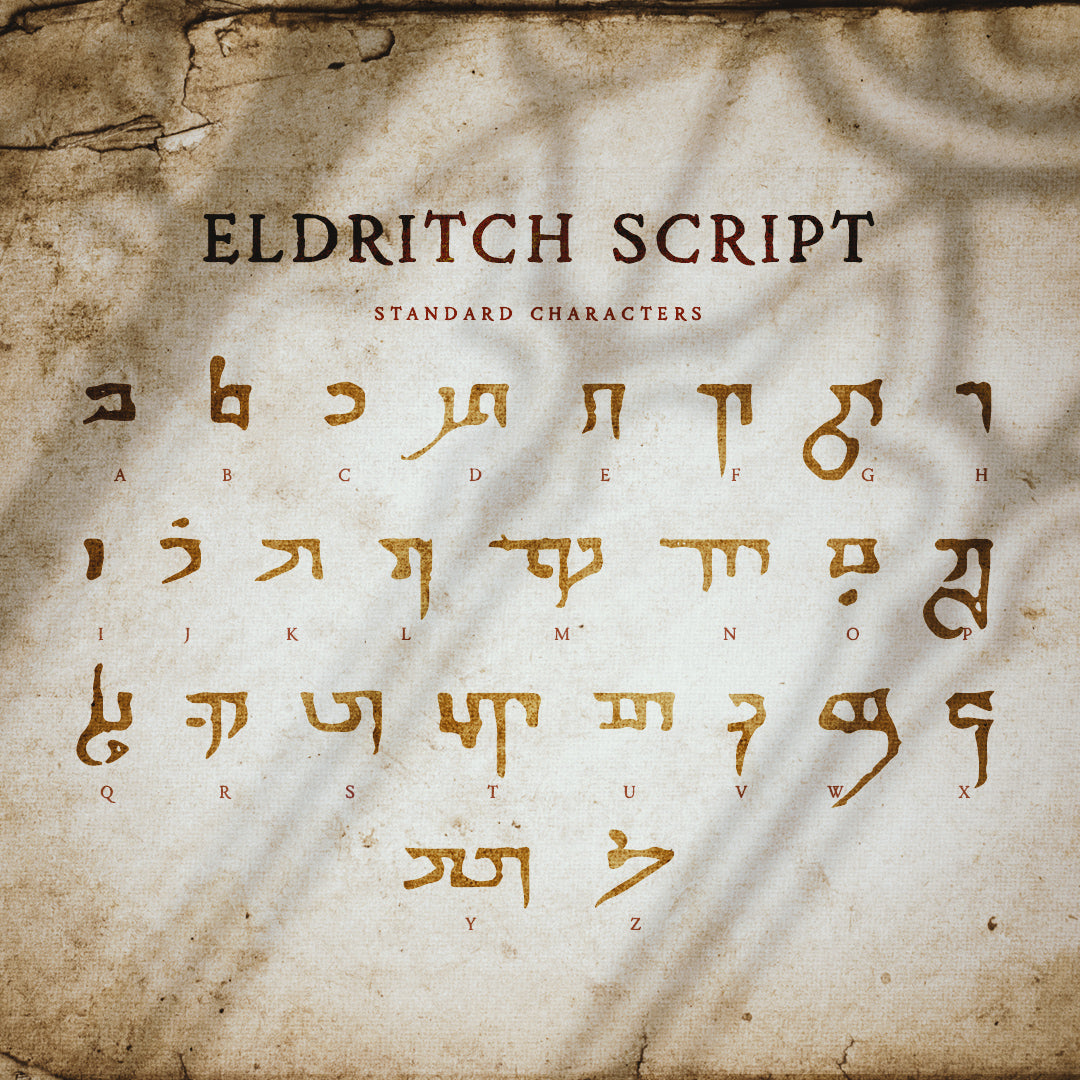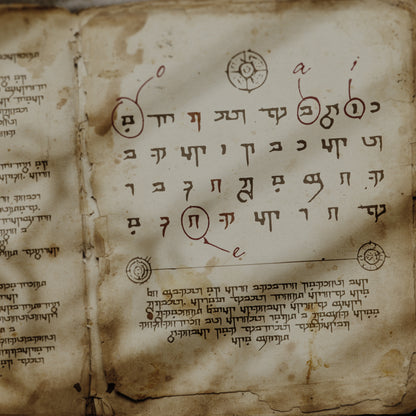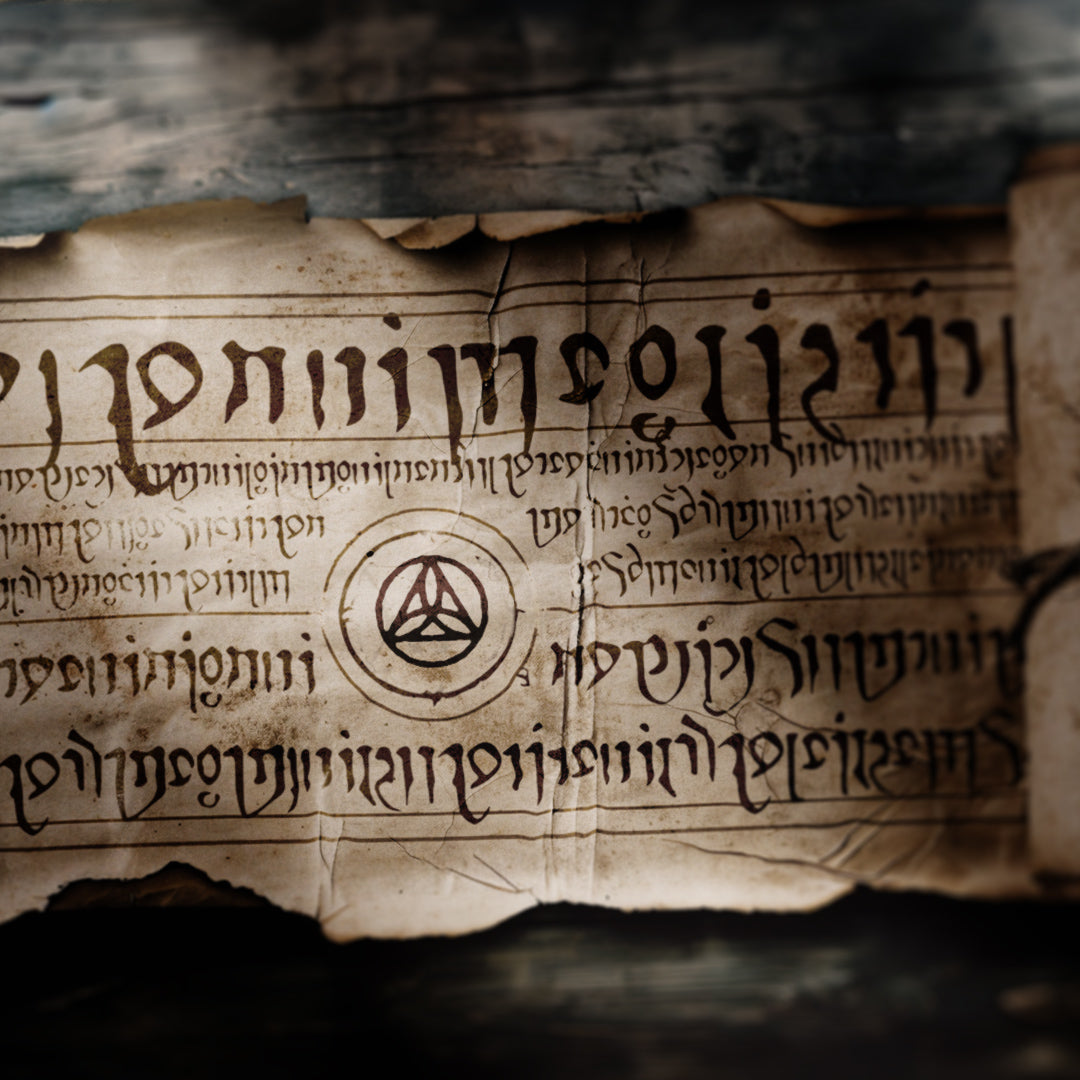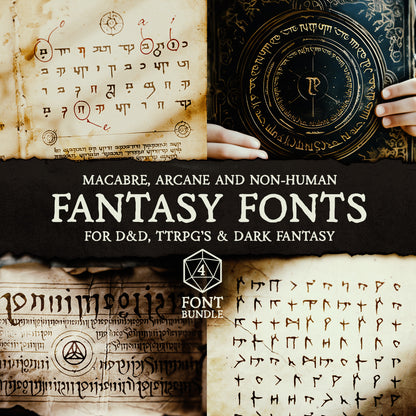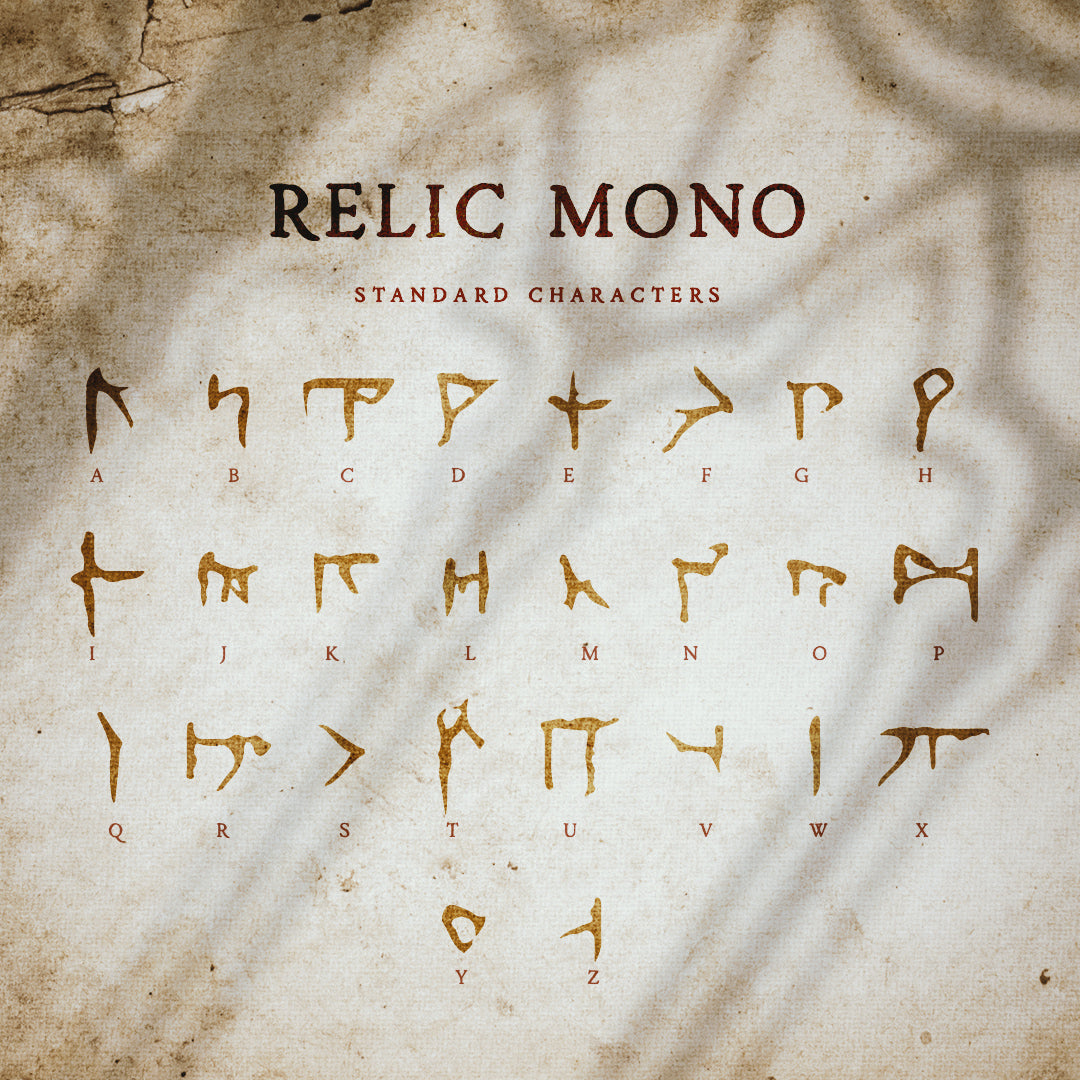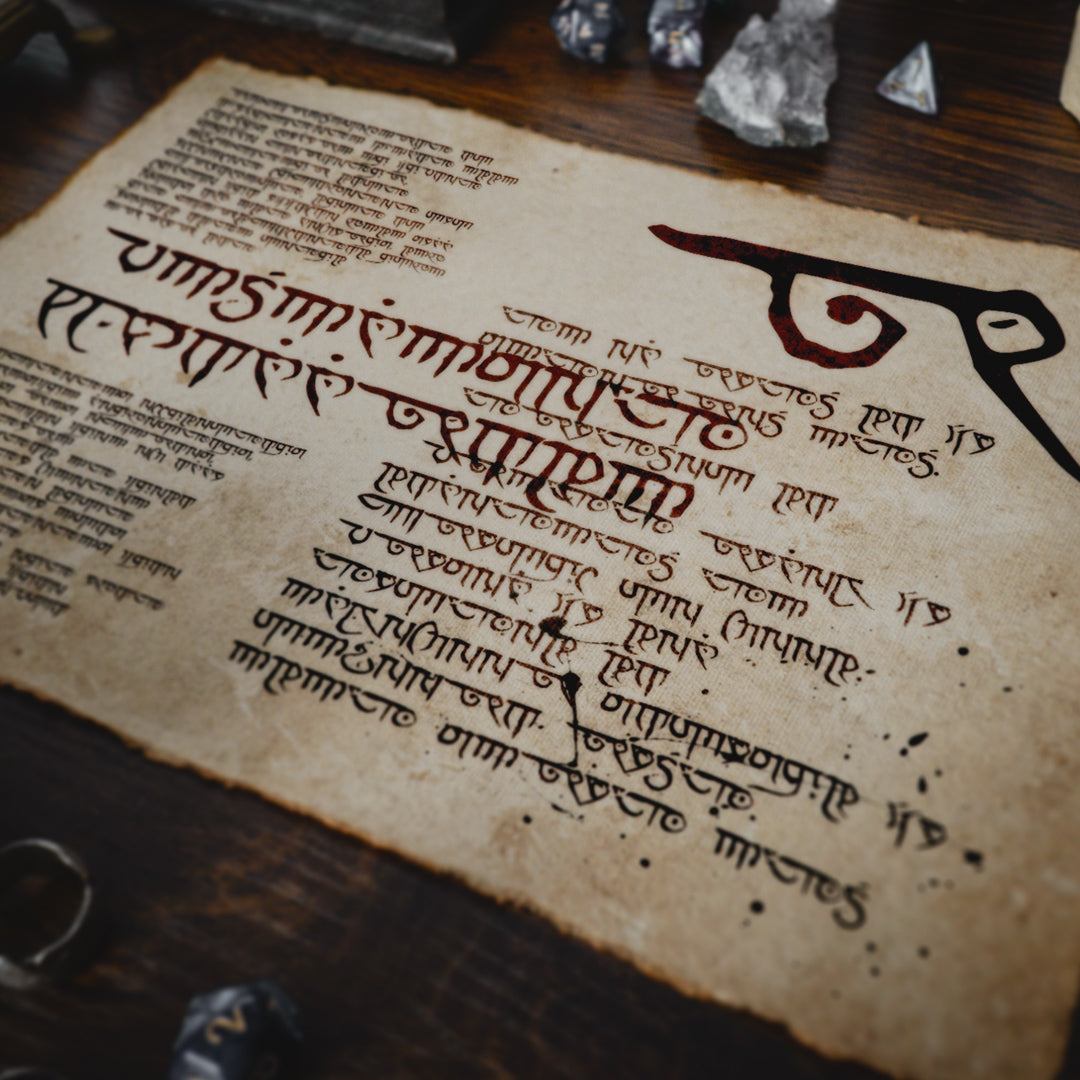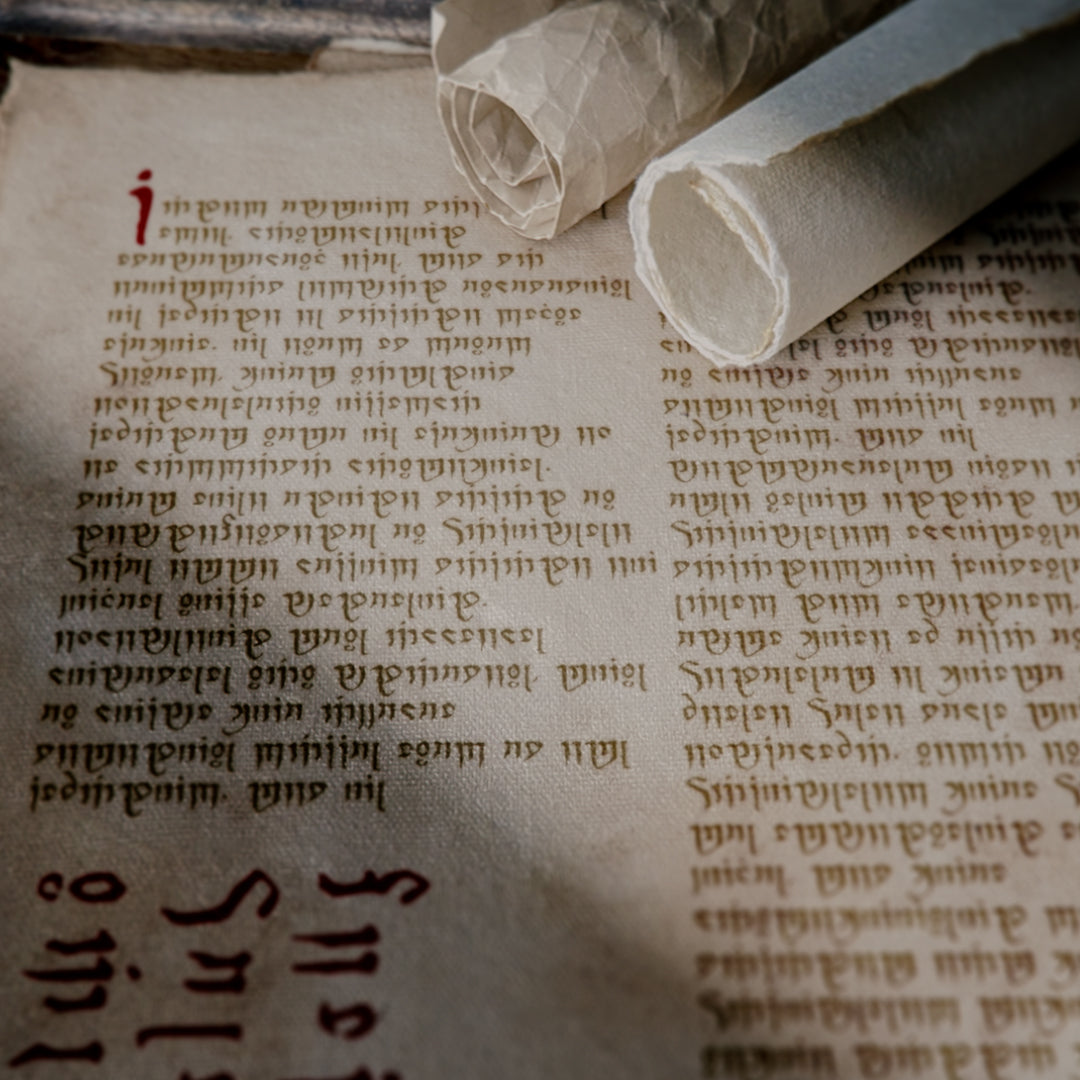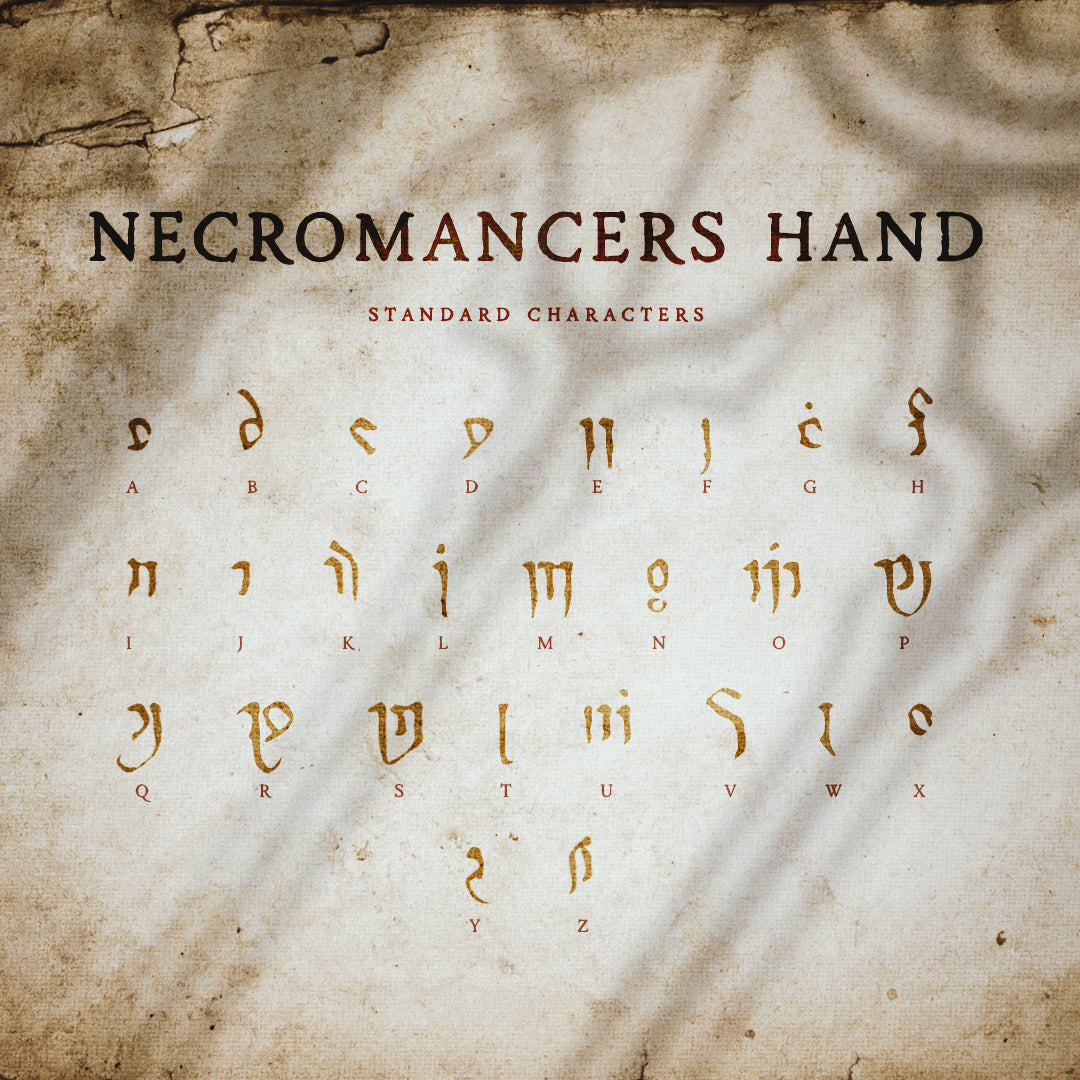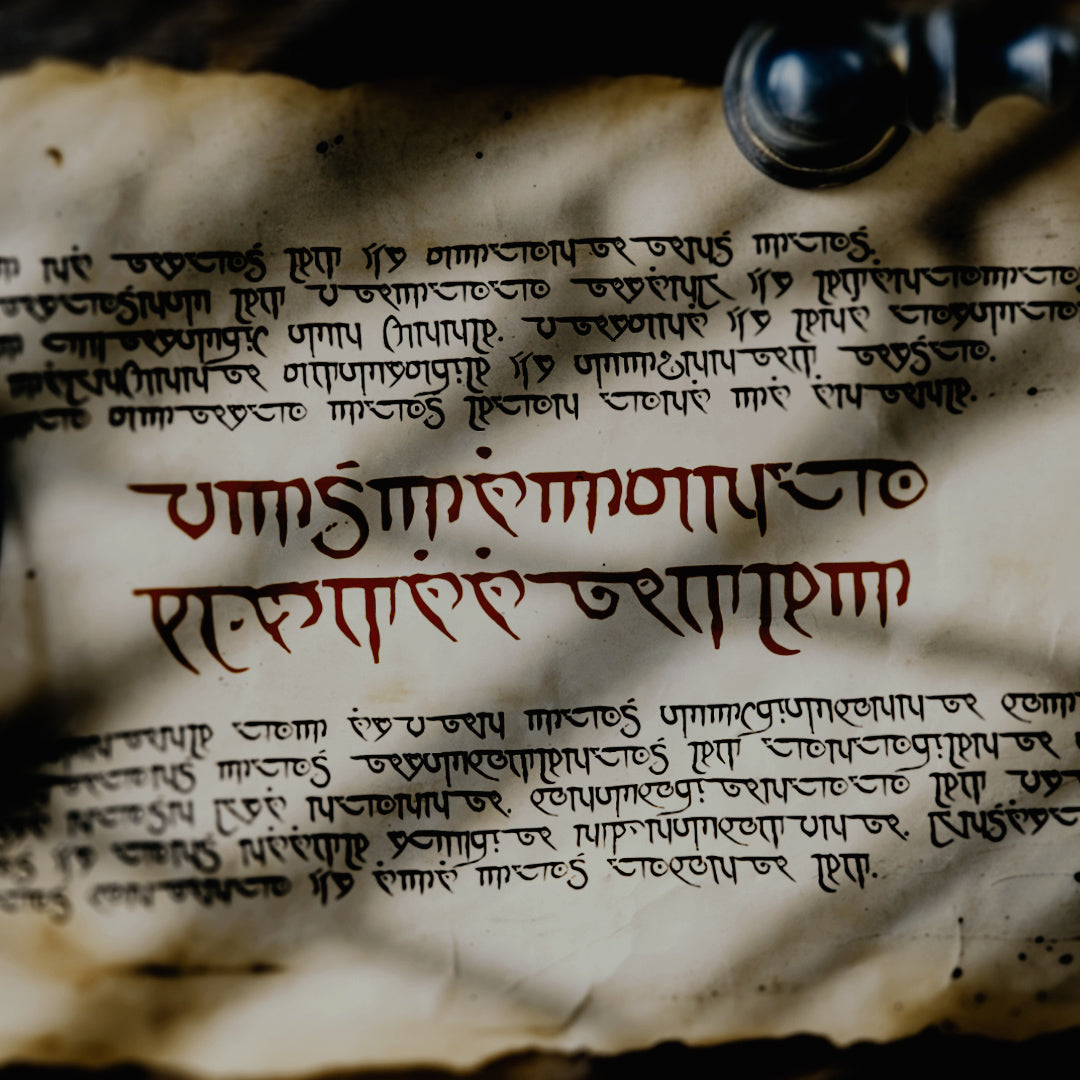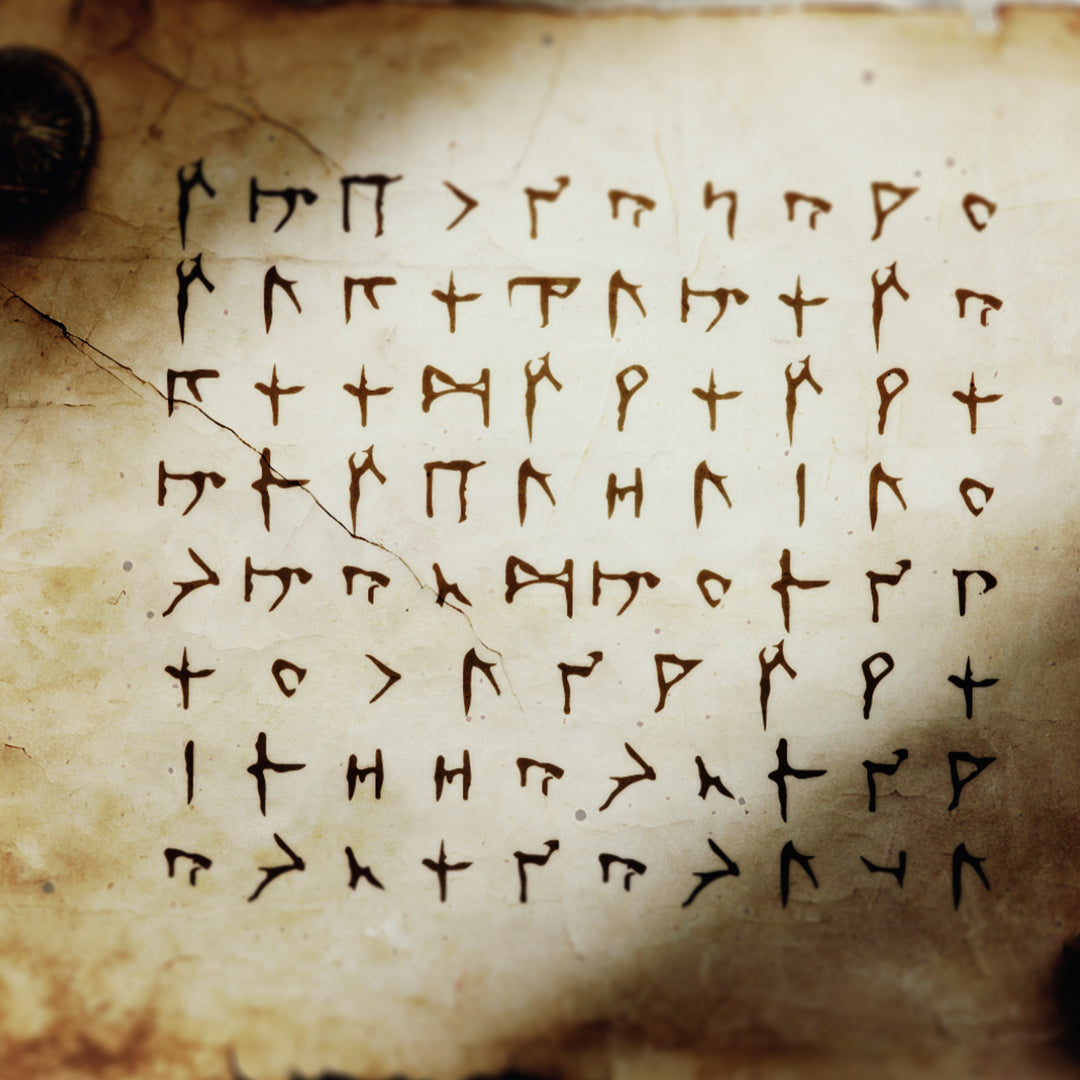
Dark Fantasy Font Bundle
A collection of 4 arcane, magical non-human, dark fantasy fonts specifically designed for dungeon masters, games masters and those of you seeking out a dark fantasy or grimdark aesthetic.
This macabre font bundle is ideal for creating props and handouts for your gaming sessions and campaigns; particularly useful for letters, or magical incantations forged by elves, dark elves, warlocks, sorcerers or any other non human characters and NPC's.
Each font contains all 26 standard letters of the English/Latin alphabet, resulting in a collection of rune based fonts that are ideal for creating cipher puzzles, pages from ancient tomes, grimoires or spell scrolls for your gaming sessions, be that Dungeons and Dragons, Pathfinder, Warhammer or other Table-top RPG of choice.